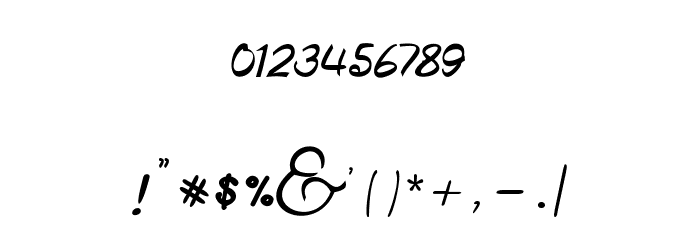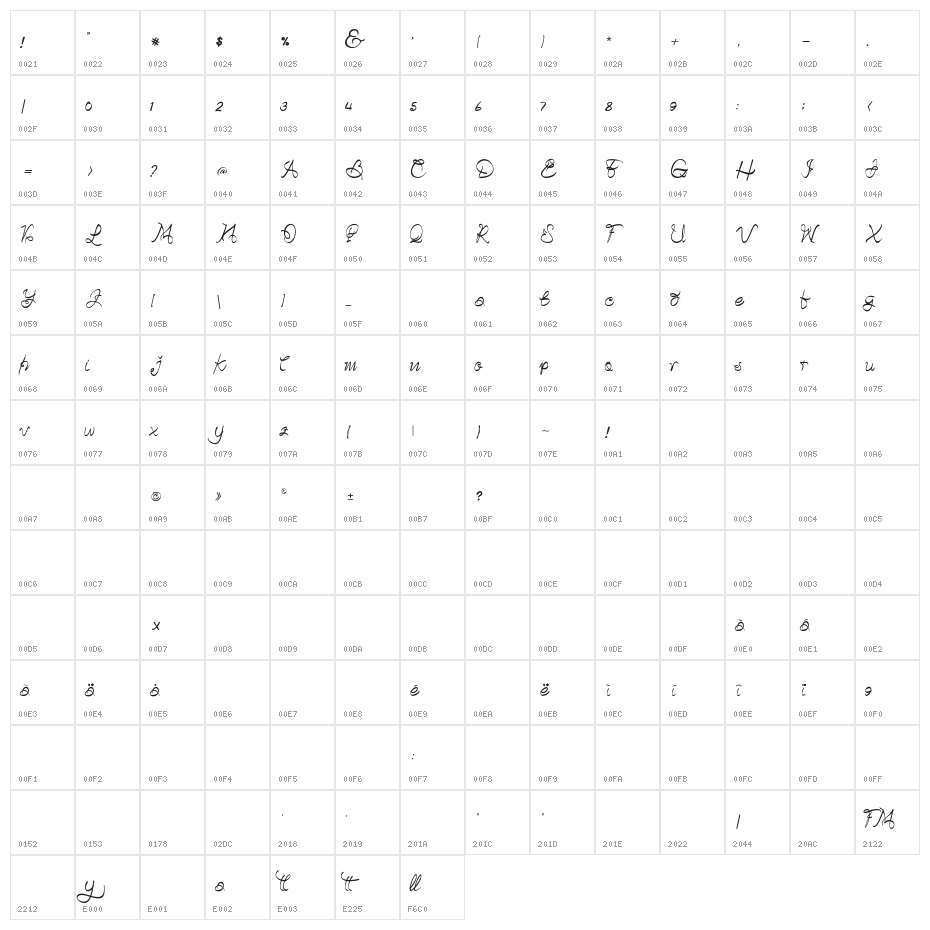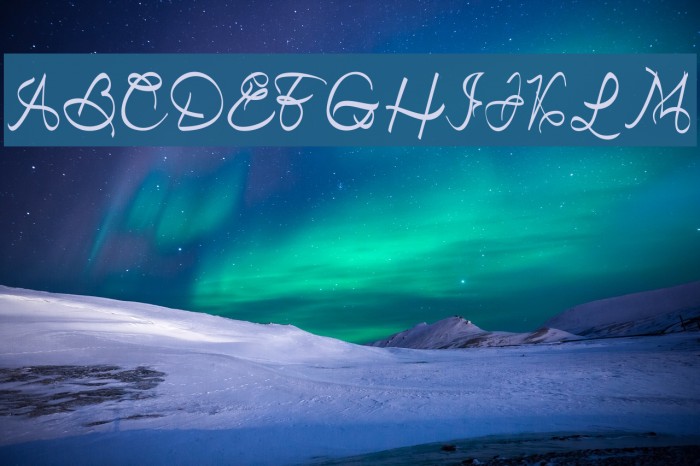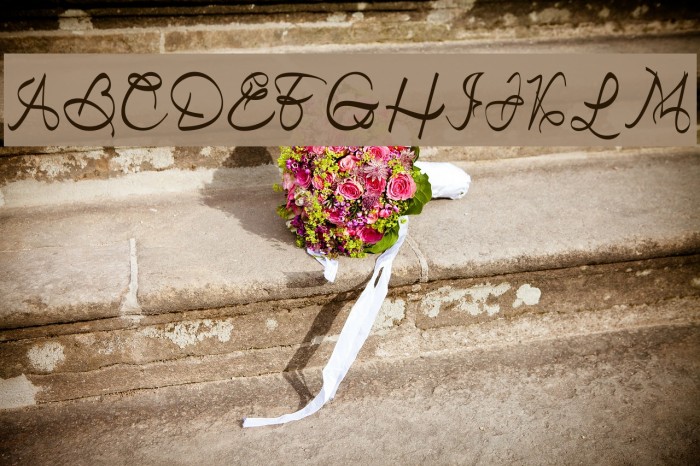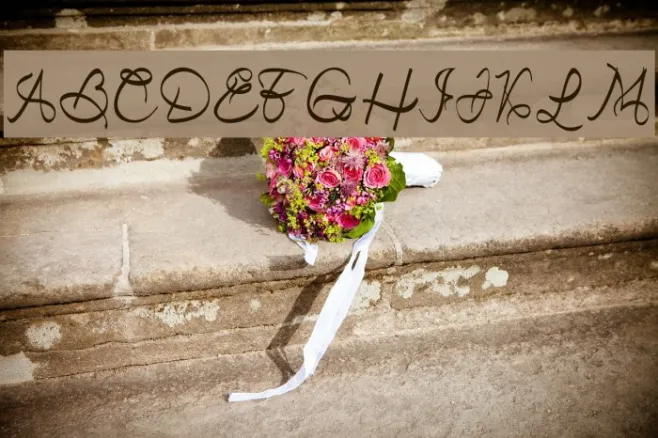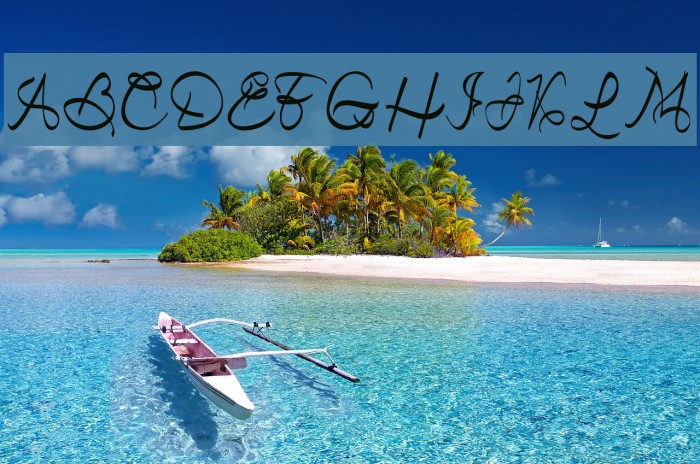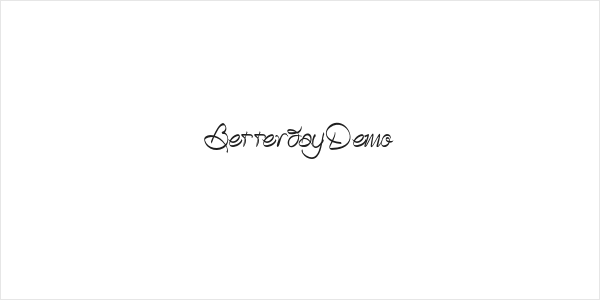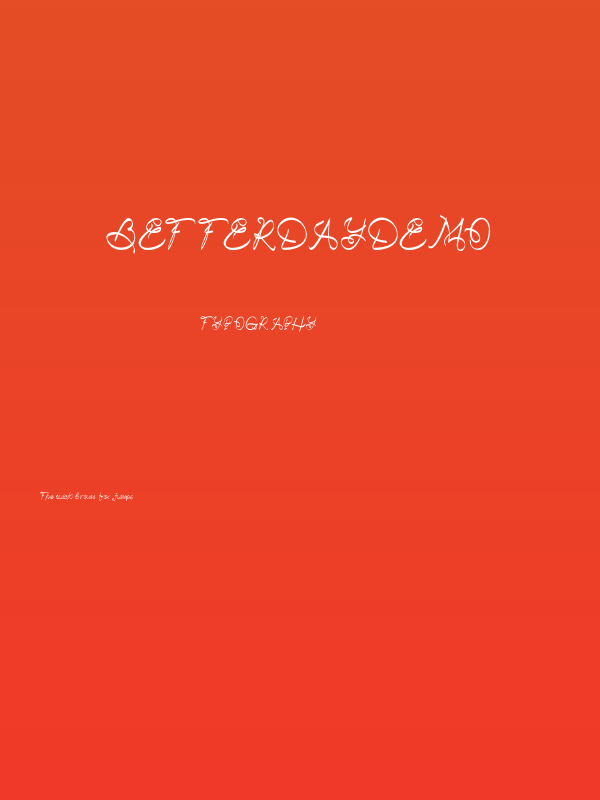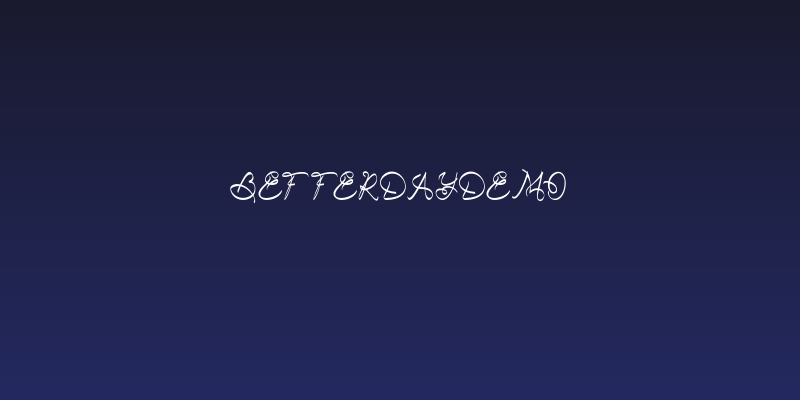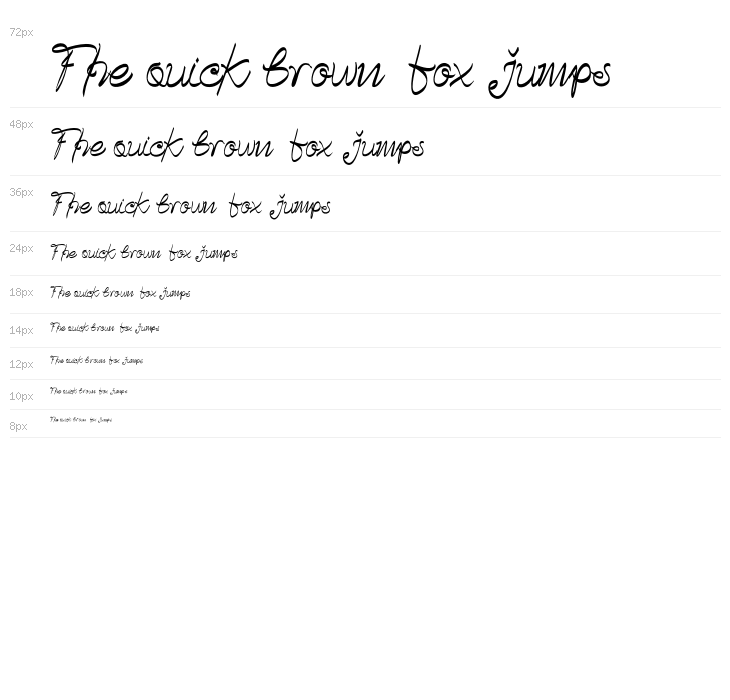
BetterdayDemo Font
BetterdayDemo Description
This font exhibits a whimsical and artistic script style, characterized by its flowing, interconnected letters that mimic the fluidity of handwriting. The uppercase letters are ornate, with elegant loops and swirls that add a touch of sophistication. The lowercase letters maintain a consistent style, with smooth curves and a playful demeanor. The numbers are clear and maintain the script's overall aesthetic, ensuring readability while retaining the font's unique charm. Special characters are thoughtfully designed, integrating seamlessly with the rest of the typeface. This font's distinctive style makes it ideal for creative projects where a personal, handcrafted feel is desired.
| Proposed Projects | Ideal for wedding invitations, greeting cards, personal branding, and artistic projects. |